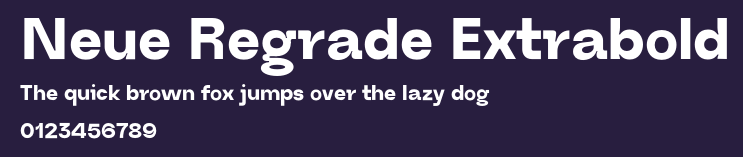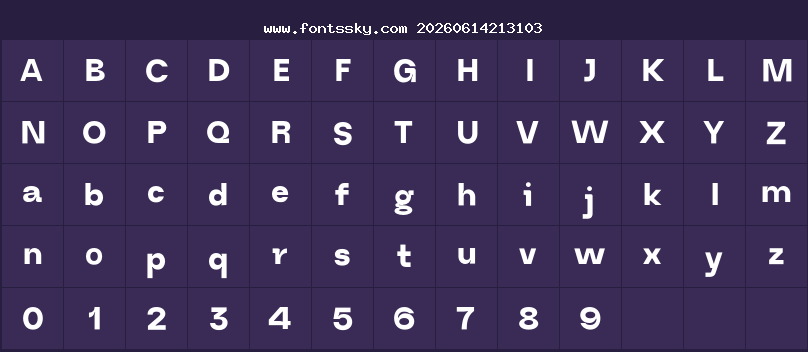
• Font Name: Neue Regrade Extrabold
• Full Font Name: Neue Regrade Extrabold
• Designer: József Ungvári
About Neue Regrade Extrabold.otf
Neue Regrade Extrabold.otf is a modern, elegant sans-serif font designed for ultimate readability and visual harmony. Perfect for branding, headlines, web design, and print materials.